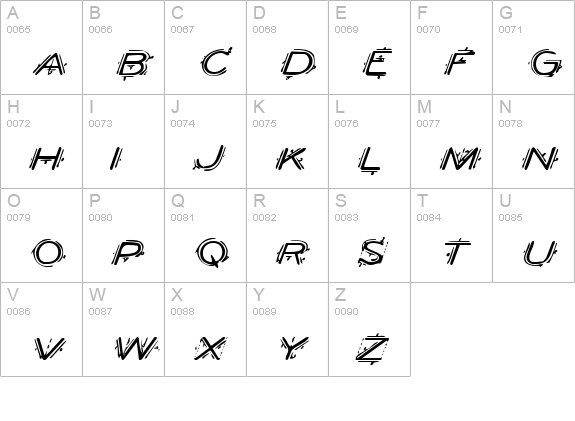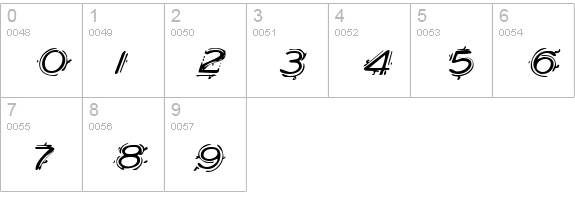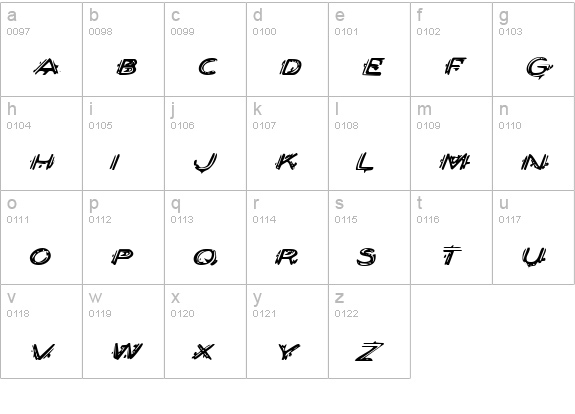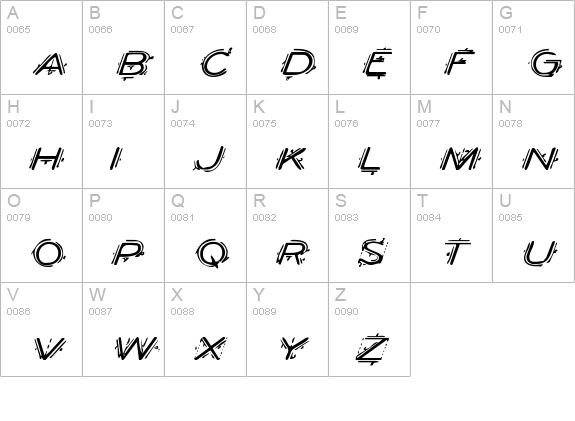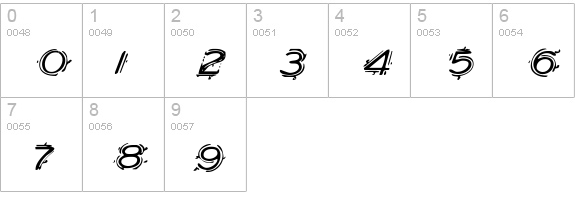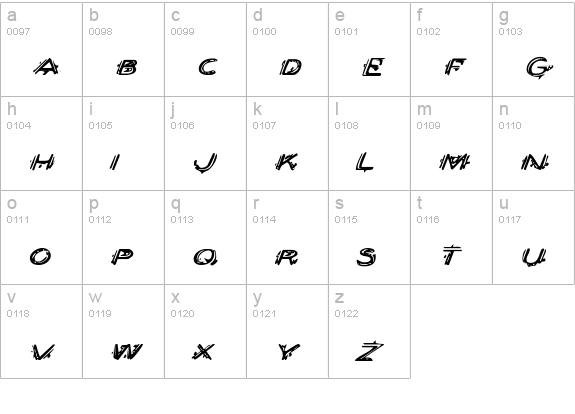
Berserker Expanded Italic is a distinctive, extended-width, italic variant in the Berserker typeface family \xE2\x80\x94 well suited to design and typography projects.
Berserker Expanded Italic font is a bold and dynamic typeface that exudes strength and power. With its slanted and elongated characters, this font conveys a sense of energy and intensity, making it perfect for bold headers and eye-catching designs. The italicized style adds a touch of elegance and sophistication, making Berserker Expanded Italic a versatile choice for a wide range of design projects. What's even better is that Berserker Expanded Italic font is available for free download at FontsMarket.com. This means you can easily add this striking typeface to your collection without any cost. Whether you're working on a poster, logo, or website design, Berserker Expanded Italic font is sure to make a bold statement and leave a lasting impression on your audience. Download it now and unleash the power of this impressive font in your next project!